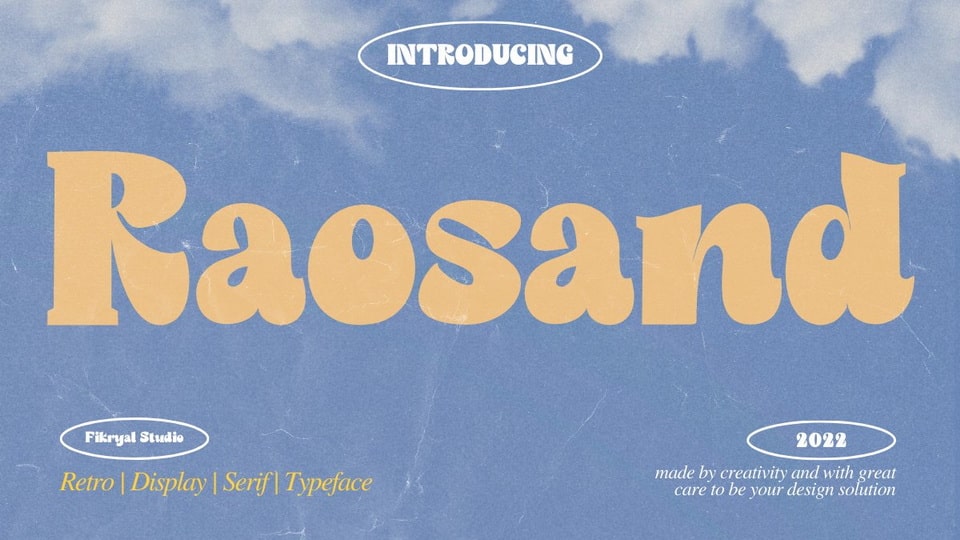
Download Raosand font, a retro serif typeface made with creativity and great care to be your design solution. Raosand font is very suitable to be applied in various aspects of design and your branding.
Designer: Fikry Alif